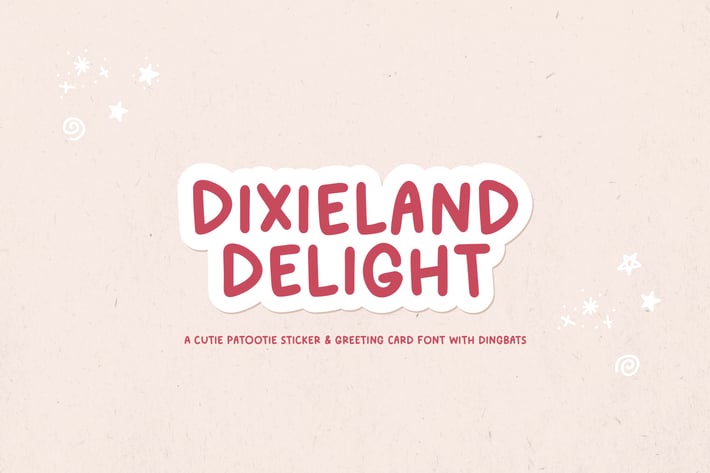
Dixieland Delight Font Duo
I just love creating fonts for quotes. If you’ve seen my instagram, you know it’s kinda my thing. ;) But I also love to doodle, so I popped some new doodles into a font file with this new Sans Serif, and BOOM, Dixieland Delight was born! It’s buttery smooth and super legible for greeting cards and stickers, but don’t forget how good it looks on your social media posts! ;)
English Only Glyphs with a set of monoline doodles.